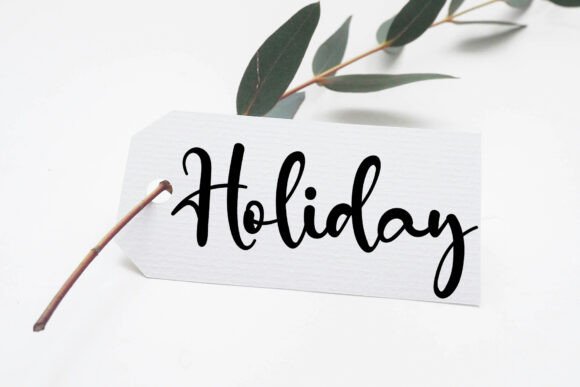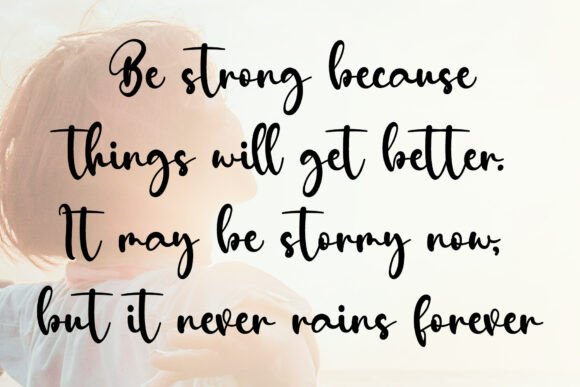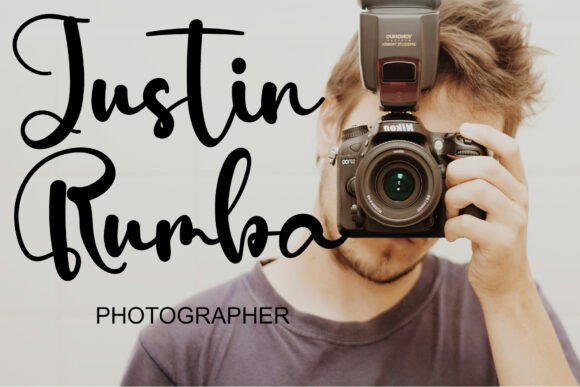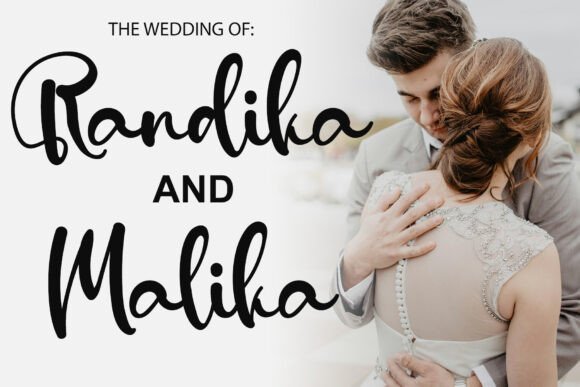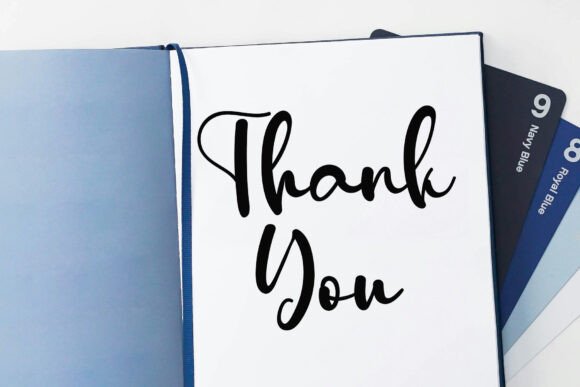
Introducing Bestie Font: The Ultimate Holiday Typeface for Designers and Crafters
Are you looking for a font that captures the essence of the holiday season? Do you want to add a touch of magic to your designs and make them stand out? Look no further than Bestie Font, a festive and merry typeface that’s perfect for greeting cards, gift tags, and holiday-themed projects.
The Spirit of the Holiday Season in a Font
Bestie Font is a decorative typeface that’s designed to evoke the spirit of Christmas and the holiday season. With its whimsical flair and enchanting elements, this font adds a touch of nostalgia and cheer to your words. Whether you’re a designer, crafter, or DIY enthusiast, Bestie Font is the perfect choice for creating holiday-themed projects that shine.
What Makes Bestie Font Special?
So, what sets Bestie Font apart from other fonts? Here are a few features that make it a standout:
- Decorative elements: Bestie Font features decorative elements that add a touch of festivity to your designs. From snowflakes to holly leaves, these elements bring the holiday season to life.
- Whimsical flair: This font has a playful, whimsical quality that’s perfect for creating holiday-themed projects that are fun and engaging.
Bestie Font is perfect for designers and crafters who want to create holiday-themed projects that stand out. Here are a few ways you can use this font:
- Greeting cards: Create festive greeting cards that capture the spirit of the holiday season.
- Gift tags: Add a touch of magic to your gift tags with Bestie Font.
- Holiday-themed projects: Use Bestie Font to create holiday-themed projects, such as party invitations, decorations, and more.
Tips for Using Bestie Font
Bestie Font is a festive and merry typeface that’s perfect for designers and crafters who want to capture the spirit of the holiday season. With its decorative elements, whimsical flair, and PUA encoding, this font is easy to use and adds a touch of magic to your designs. Whether you’re creating greeting cards, gift tags, or holiday-themed projects, Bestie Font is the perfect choice. So why wait? Download Bestie Font today and let your typography shine with the magic of Christmas Font!
- Festive and merry typeface
- Decorative elements and whimsical flair
- Perfect for greeting cards, gift tags, and holiday-themed projects